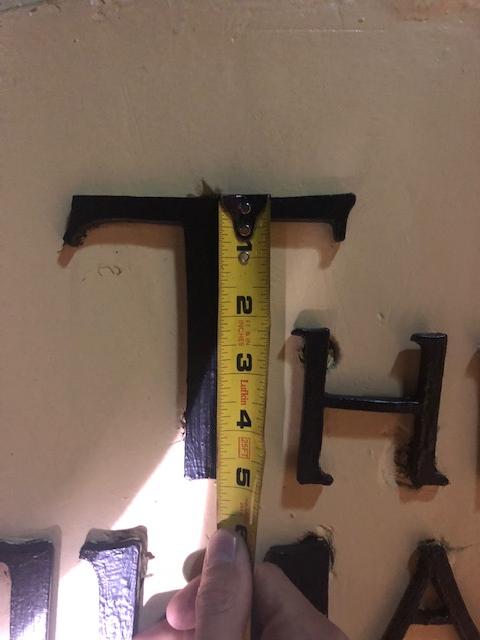
Ok Font Experts
Here's a toughy....I KNOW I have this one somewhere but can't ID it. This is all I have to go by.
I think the T is supposed to have a bottom serif but it may be broke off.